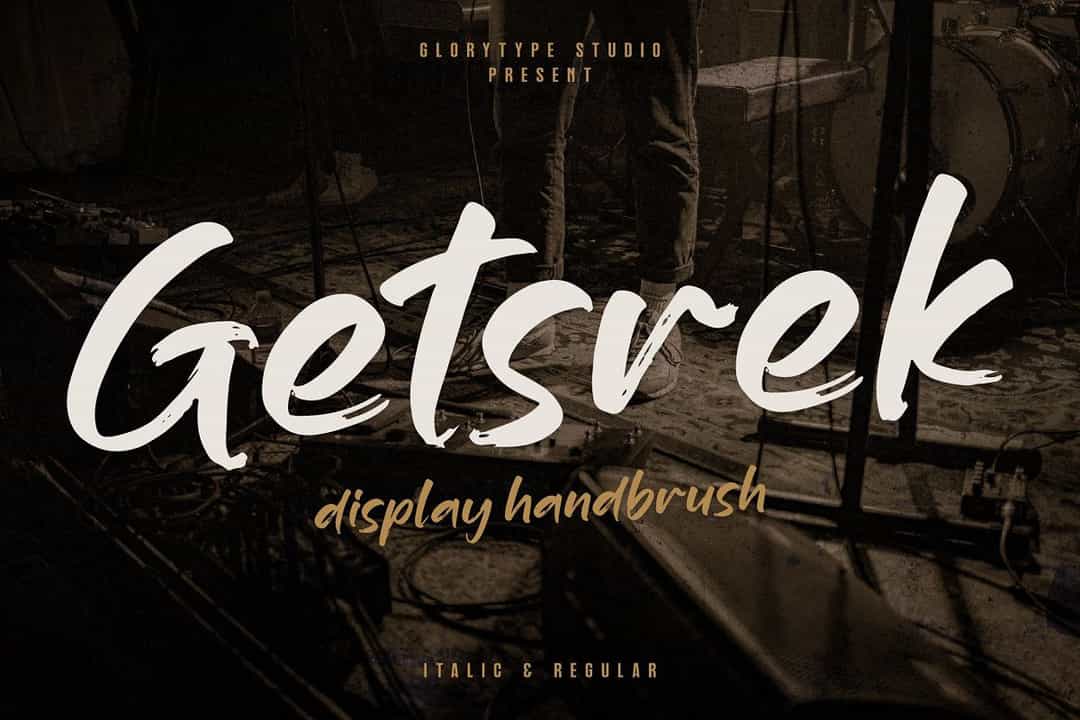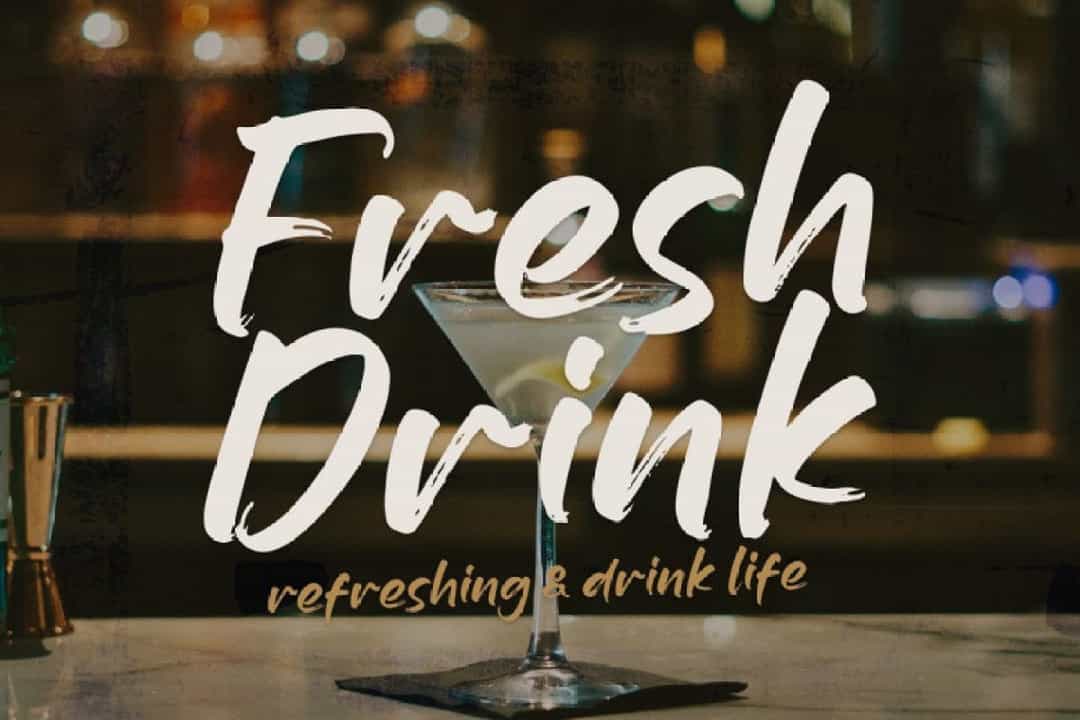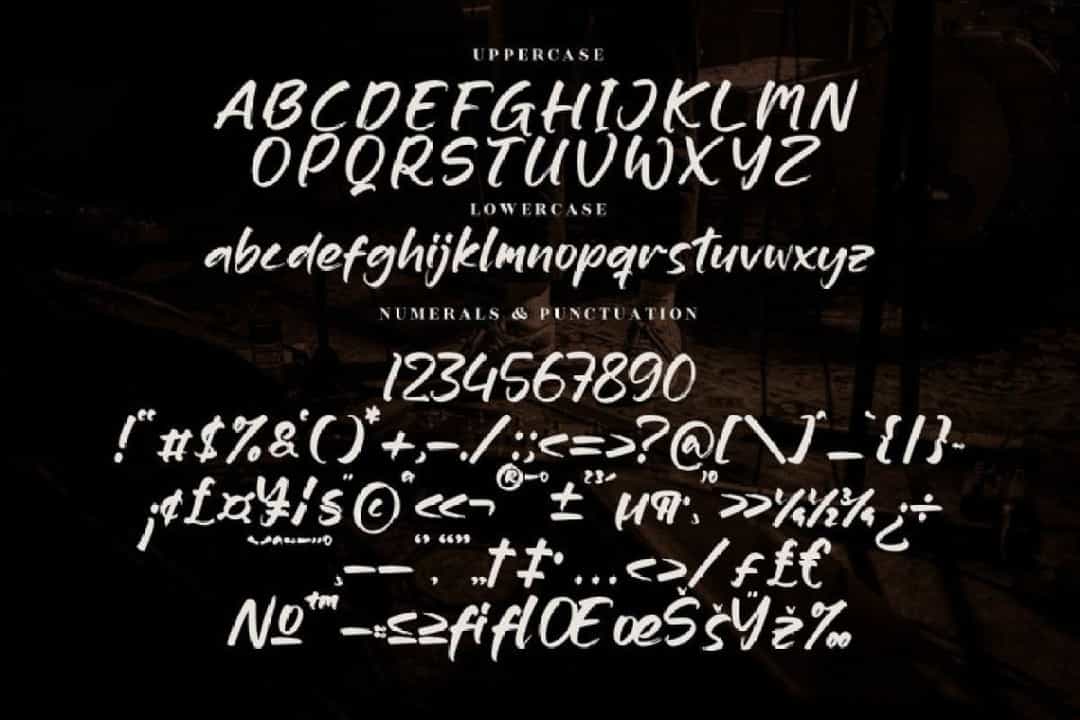
Glorytype Studio’s Getsrek display handbrush script font is ideal for any creative project requiring beautiful script styling, such as logos, branding design, homeware packaging, mugs posters and quotes shopping bags – as well as logos greeting cards invitation cards labels photo watermark occasions special events and many others requiring eye-catching script flair!